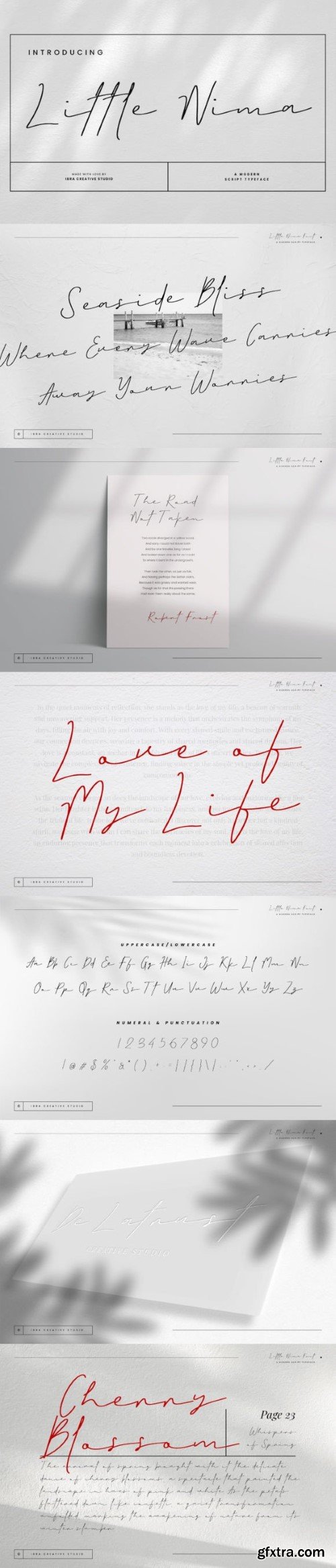
尼马字体
Little Nima, a modern script typeface, seamlessly blends elegance with contemporary design, offering a harmonious balance between sophistication and approachability. Its fluid and graceful strokes create a dynamic rhythm, allowing the typeface to flow naturally across the page. Little Nima is designed to bring a touch of modernity to any project, whether used in branding, invitations, or editorial design. The clean lines and distinct letterforms ensure readability, while the script’s subtle curves and flourishes add a layer of charm and personality.